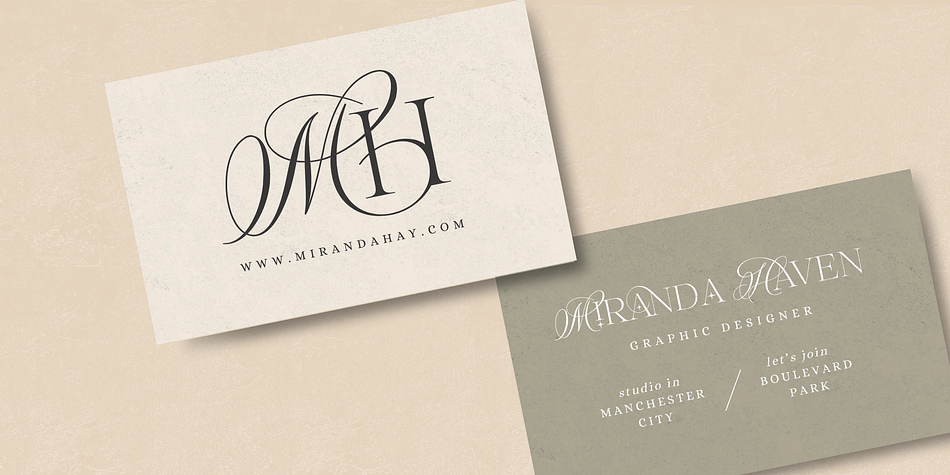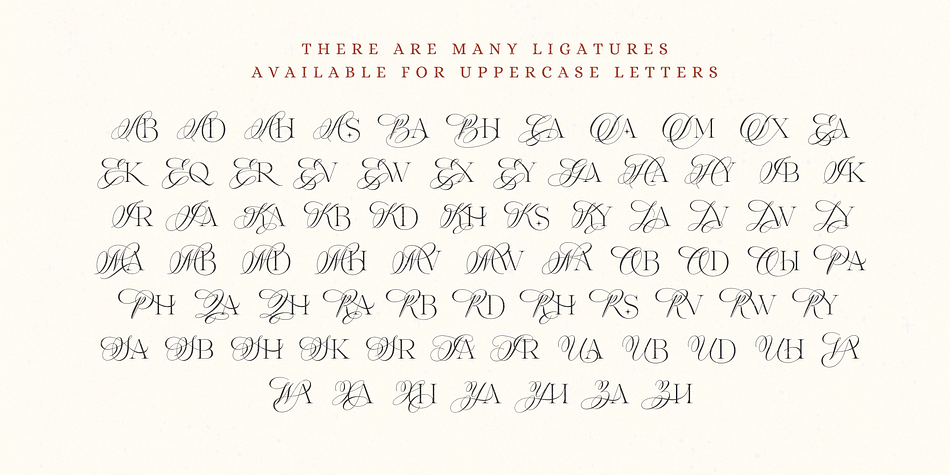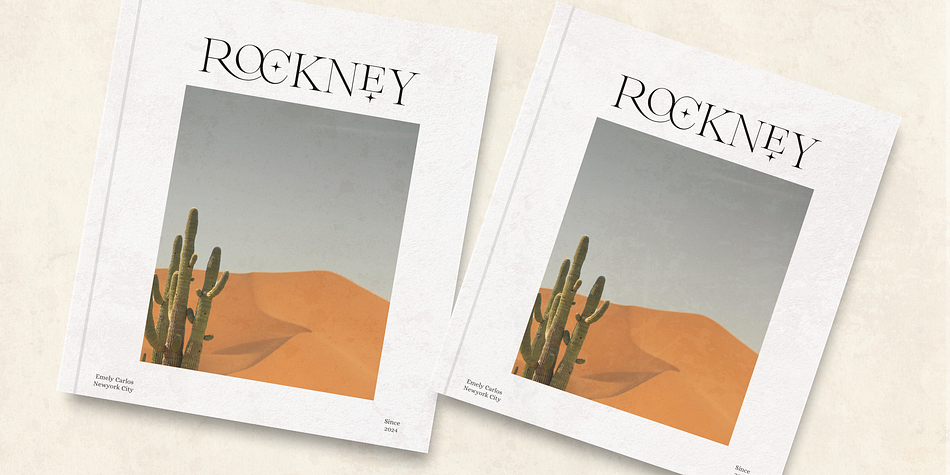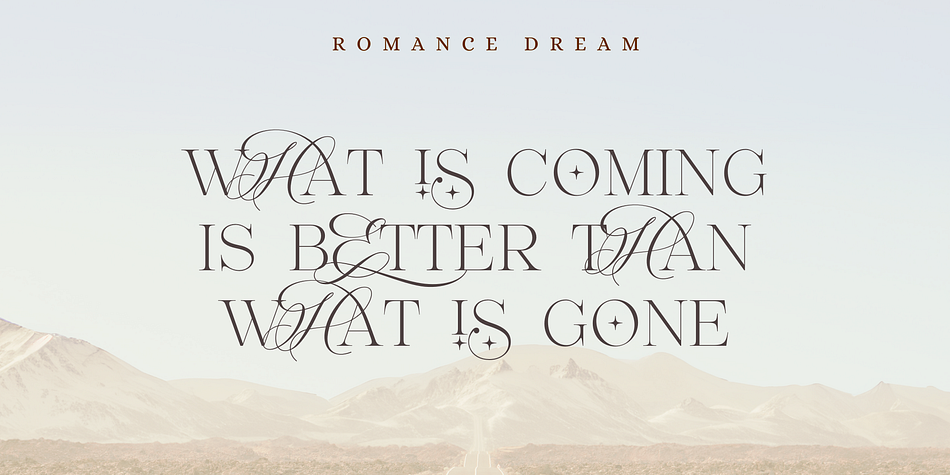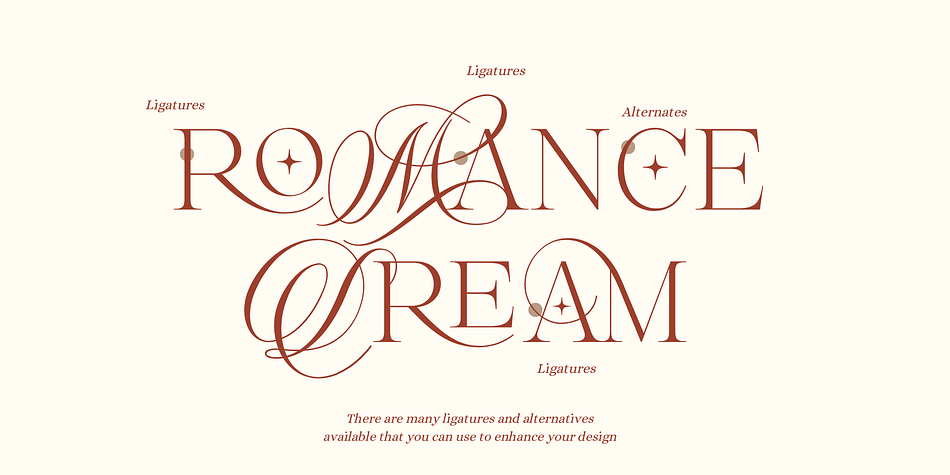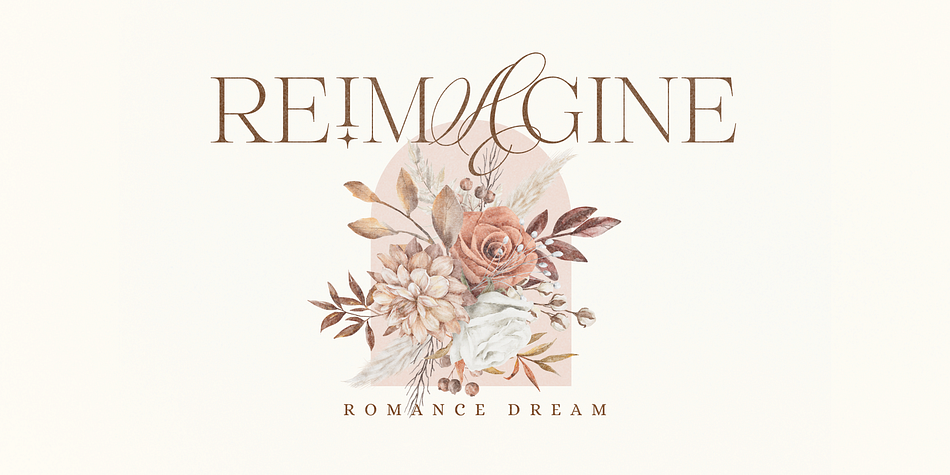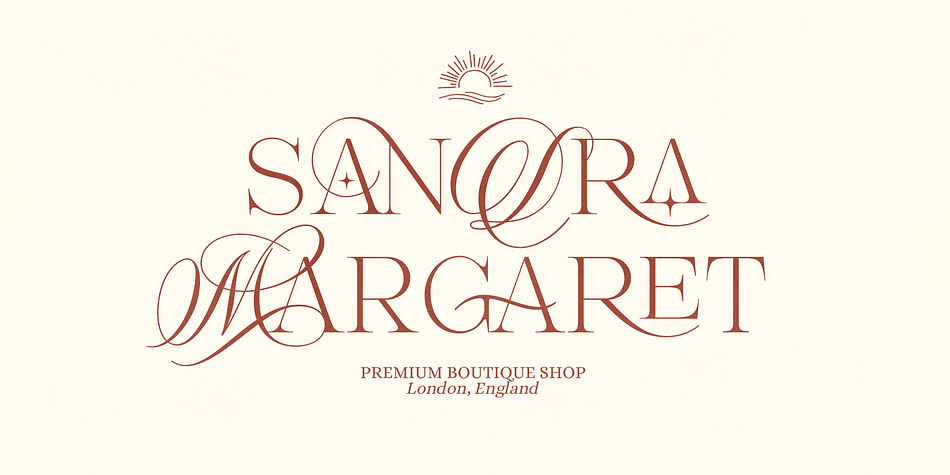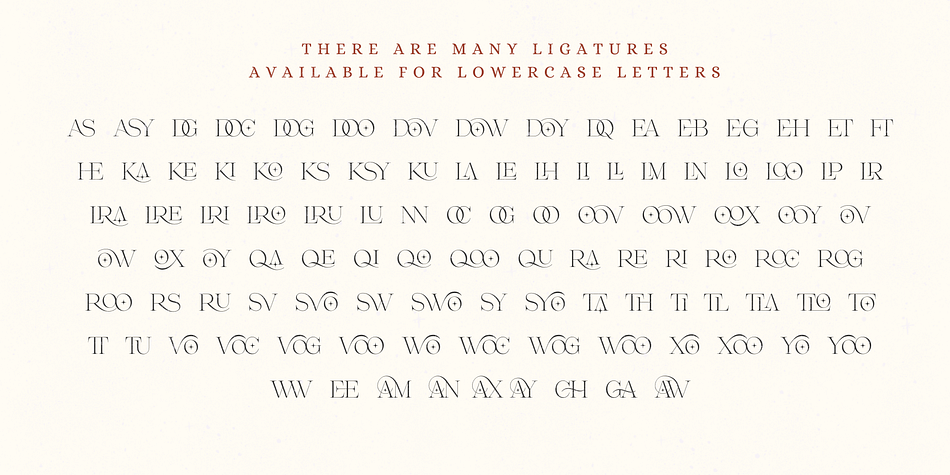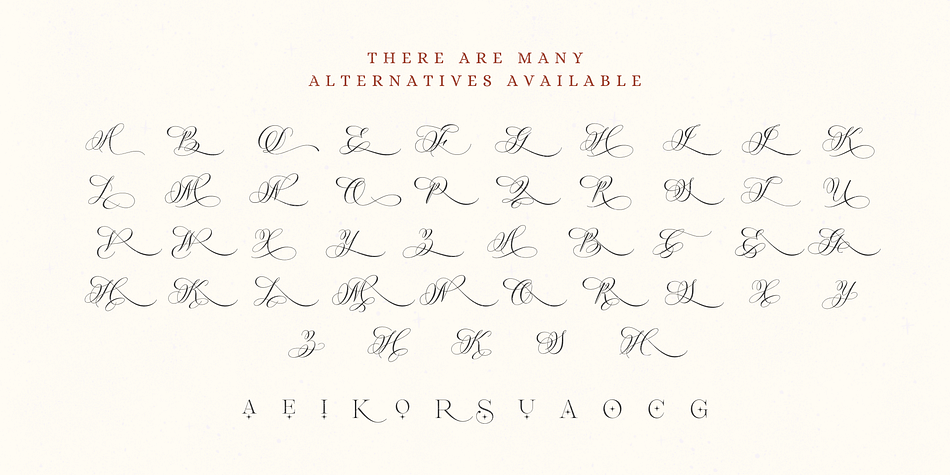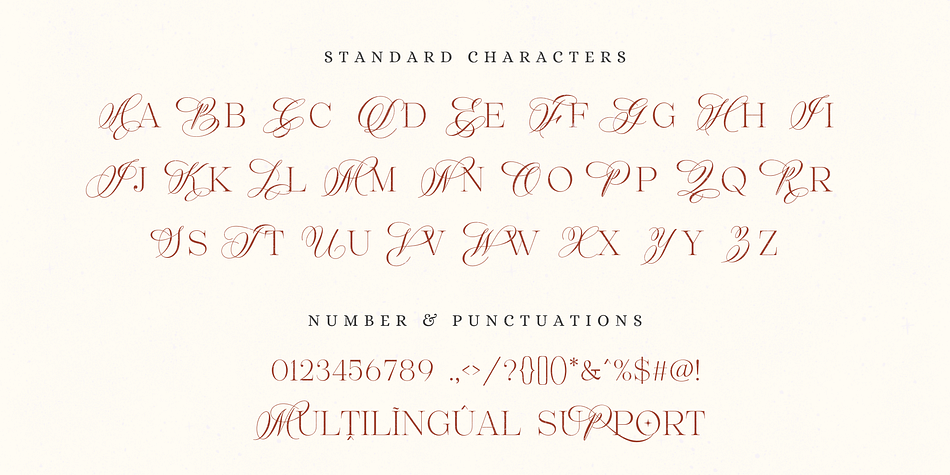
Romance Dream
Romance Dream is a display serif font family. This typeface has two styles and was published by Silverdav Studio.
Introducing, Romance Dream font, is a hybrid font, a combination of calligraphy and serif, a font with a unique combination that creates an elegant and modern impression
Romance Dream font has many unique alternates and ligatures so it can make the design you create even more beautiful and charming, there are 58 Alternates & 181 Ligatures, which is very cool, try using the font and you will create a unique combination of font shapes.
This font also features an italic version to add uniqueness to your design.
239 Ligatures & Alternates
Multilingual Support 96 languages